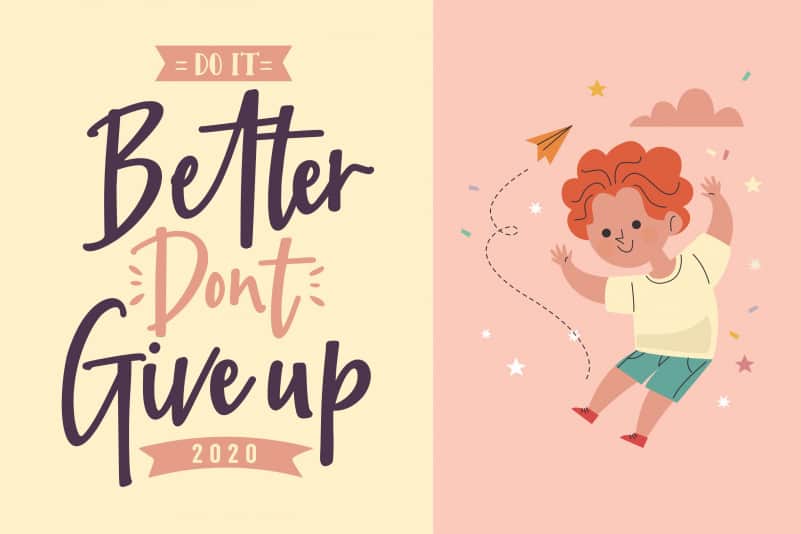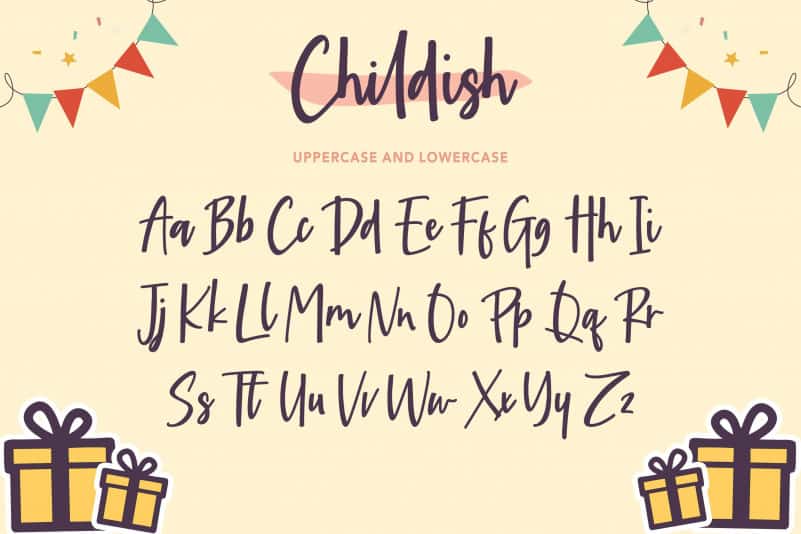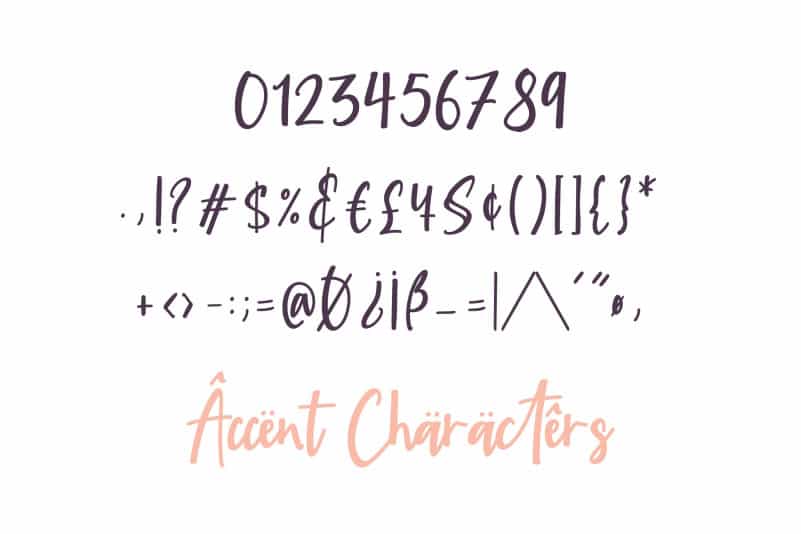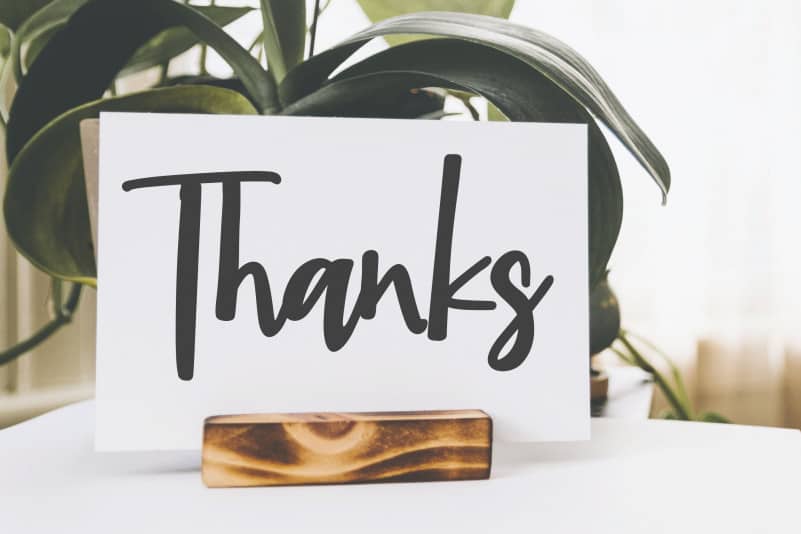
Childish Sweet Handwritten Font
Proudly Present, Childish Sweet Handwritten Font.
Childish is a Sweet Handwritten Font. This sweet font has nice smooth lines.
Childish is perfect for product packaging, branding project, megazine, social media, wedding, or just used to express words above the background.